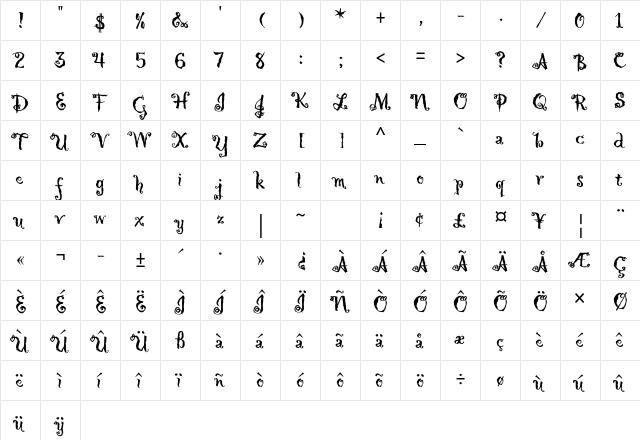
Hollyweird Std Regular
| Designer | Jill Bell |
Design Context for Hollyweird Std Typeface
Hollyweird Std is a composed and adaptable typeface that performs quietly and consistently across a wide range of design contexts.